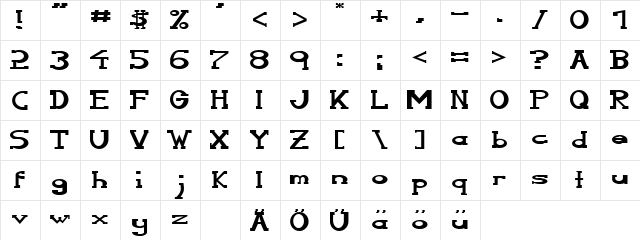
Serifonwide Regular
Design Context for Serifonwide Typeface
Serifonwide brings classic typographic sensibility to the table — its serifs and measured letterforms reflect centuries of print heritage.